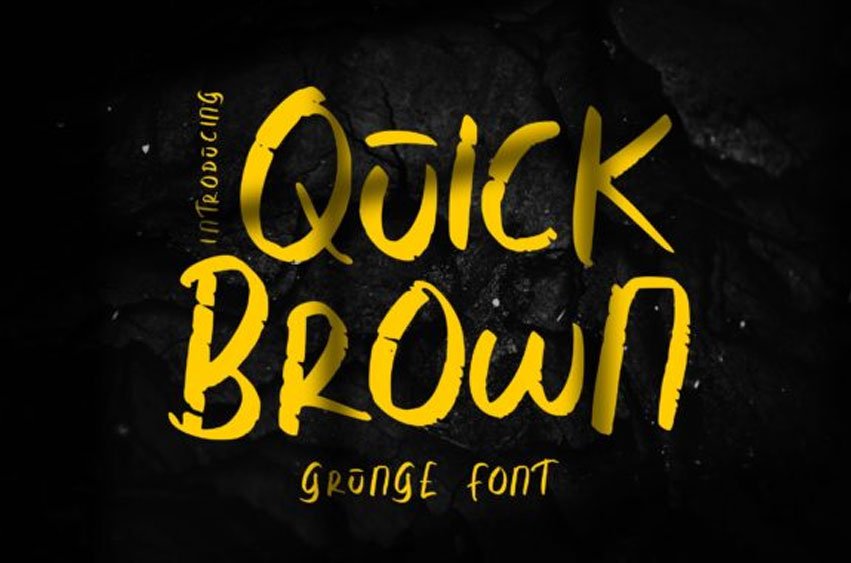
Quick Brown Font
Quick Brown Font is a bold and assertive display font.
Paint brushed and urban styled, this font will make each of your designs look great.